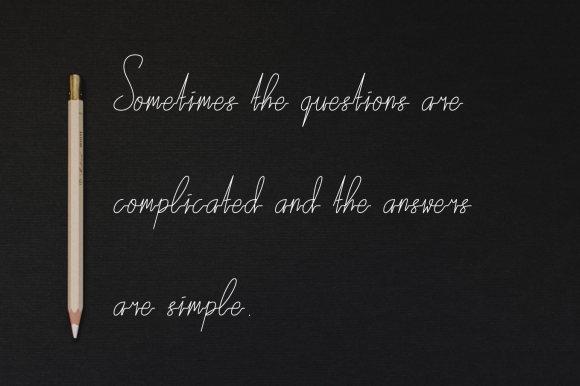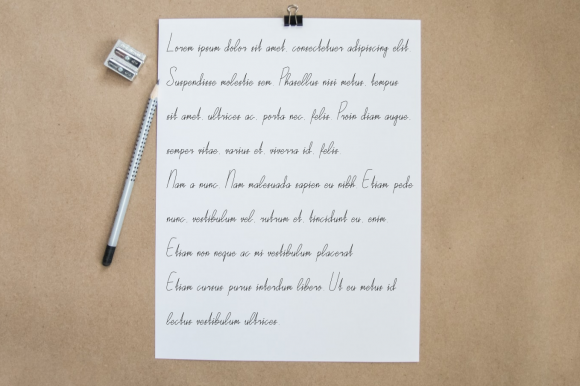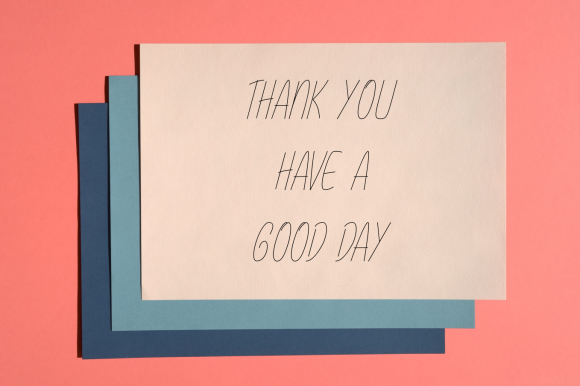
Introducing Calamity Font: The Delicate Signature Handwritten Font
Are you looking for a font that exudes elegance, sophistication, and a touch of whimsy? Look no further than Calamity Font, a delicate, signature handwritten font that is sure to capture your heart. With its light, balanced style and natural flow, Calamity Font is the perfect choice for designers and crafters who want to add a personal touch to their creations.
What Makes Calamity Font So Special?
Calamity Font is a unique and versatile font that boasts an incredibly delicate and signature handwritten style. Its light, balanced design makes it perfect for a wide range of applications, from wedding invitations and stationary art to social media posts and more. The font’s natural flow and subtle imperfections give it a human touch that is sure to resonate with your audience.
Uses for Calamity Font
One of the best things about Calamity Font is its incredible versatility. Here are just a few ideas for how you can use this beautiful font in your designs:
- Wedding Invitations: Create stunning wedding invitations that set the tone for a beautiful and elegant wedding. The delicate style of Calamity Font is perfect for formal and informal wedding invitations alike.
- Stationary Art: Add a personal touch to your stationary art with Calamity Font. From greeting cards to thank you notes, this font is sure to make your creations stand out.
- Social Media Posts: Use Calamity Font to create eye-catching social media posts that grab attention and engage your audience. Whether you’re promoting a product or simply sharing your thoughts, this font is sure to make your posts look beautiful.
- Branding and Packaging: Calamity Font is also perfect for branding and packaging applications. Use it to create custom labels, product tags, and more that showcase your brand’s personality and style.
Why Choose Calamity Font?
With so many fonts to choose from, why should you choose Calamity Font? Here are just a few reasons why designers and crafters love this font:
- Unique and Elegant: Calamity Font is a truly unique and elegant font that will set your designs apart from the crowd.
- Versatile: This font is incredibly versatile and can be used in a wide range of applications.
- Easy to Read: Despite its delicate style, Calamity Font is easy to read and understand, making it perfect for body text and headings.
- High-Quality: Calamity Font is a high-quality font that is designed to look beautiful in any context.
Tips for Using Calamity Font
Here are a few tips for getting the most out of Calamity Font:
- Pair it with Other Fonts: Calamity Font looks beautiful on its own, but it can also be paired with other fonts to create a unique and interesting effect.
- Use it for Headings and Titles: Calamity Font is perfect for headings and titles, but it can also be used for body text and other applications.
In conclusion, Calamity Font is a beautiful and versatile font that is perfect for designers and crafters who want to add a personal touch to their creations. With its delicate, signature handwritten style and natural flow, this font is sure to capture your heart and inspire your designs. Whether you’re creating wedding invitations, stationary art, social media posts, or more, Calamity Font is the perfect choice.